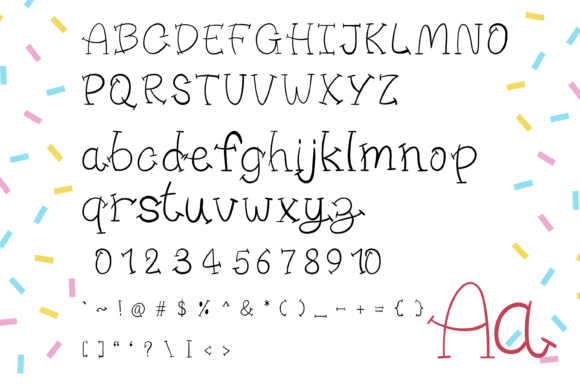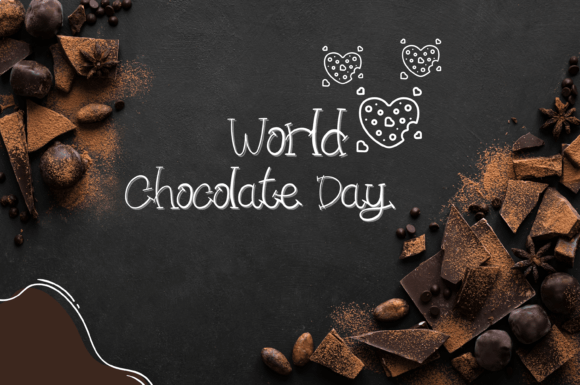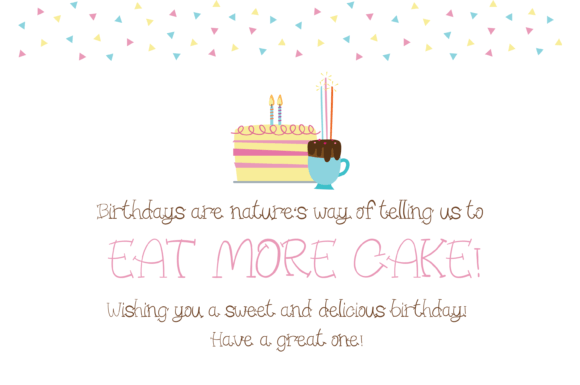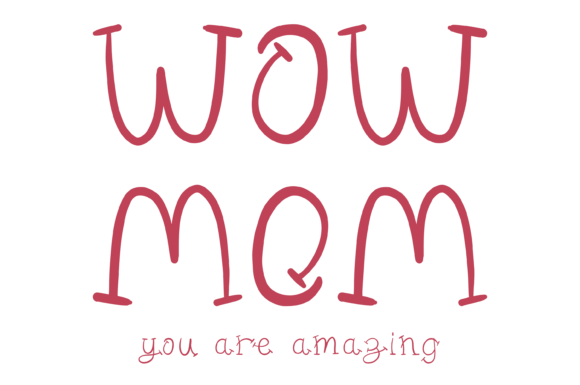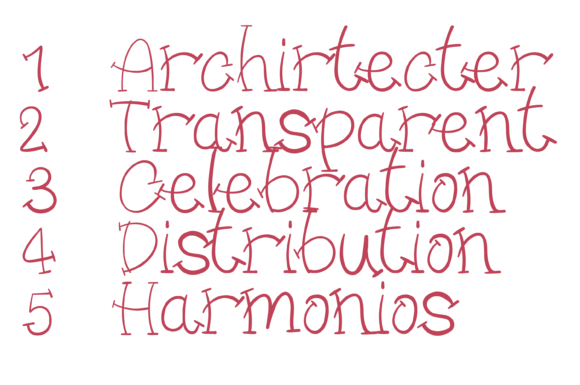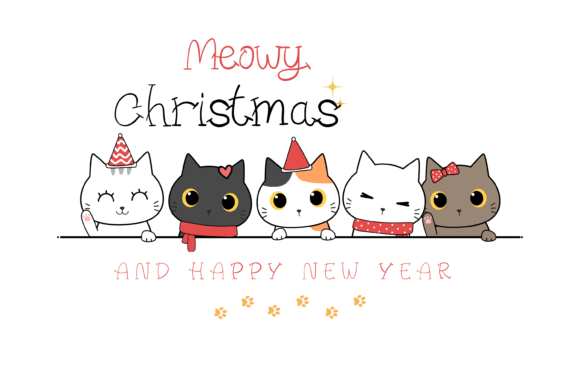
Where Creativity Meets Whimsy: Introducing Home Sweet Font
Enter Home Sweet Font, a delightful and clean handwritten font that’s sure to add a touch of personality to any project. With its versatility and charm, Home Sweet Font is the perfect addition to your design arsenal, allowing you to create unique and captivating designs that are sure to impress.
Key Features of Home Sweet Font
- Unique Characteristics: The font features a unique, hand-drawn style with subtle imperfections, giving it a warm and inviting feel, perfect for creating a cozy atmosphere in designs.
- Font Weight and Style: The font comes in various weights, from Light to Bold, and includes styles such as Regular, Italic, and Bold Italic, allowing designers to achieve a range of visual effects.
Home Sweet Font Review
Overall, I was excited to dive into the Home Sweet Font, but my experience was a mixed bag. Here’s what I loved and what didn’t quite hit the mark.
- Clean lines and a modern aesthetic make this font perfect for home decor and furniture websites.
- The font is highly customizable, allowing you to adjust the weight, size, and spacing to fit your design needs.
- The font is well-suited for headings and titles, adding a touch of elegance to your design.
- The font is not as versatile as some other options, making it less suitable for use in body text or for longer blocks of content.
- The font may appear too simplistic for more complex or modern designs.
- There are limited language support options available for this font.
While Home Sweet Font is a solid choice for specific design projects, it may not be the best fit for every situation. I would recommend it for those looking for a clean, modern aesthetic, but be cautious of its limitations.
The Home Sweet Font is ideal for:
- Home decor and furniture designs.
- Interior design and architecture projects.